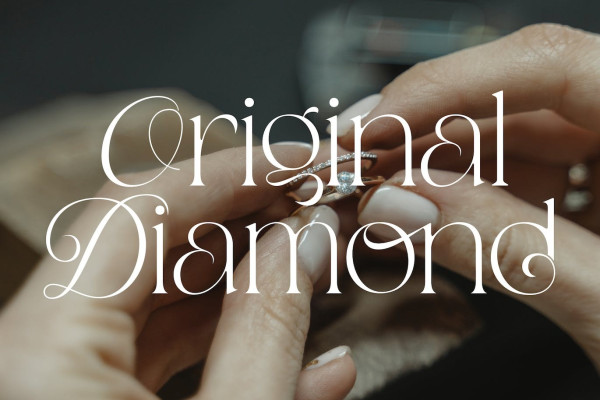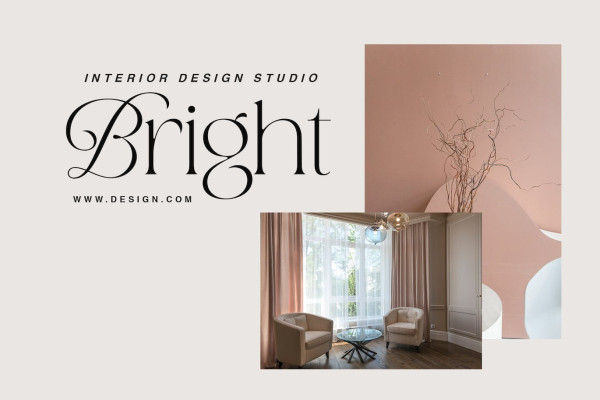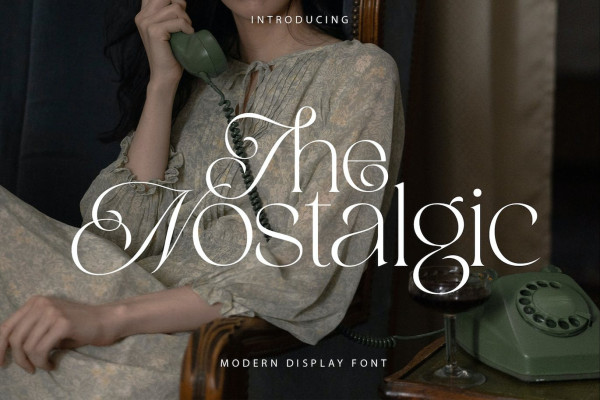
The Nostalgic Font
The Nostalgic Font is a modern display font. TheNostalgic will perfect for many project: book, magazines, logo, branding, photography, quotes, blog header, poster, advertisements, etc.